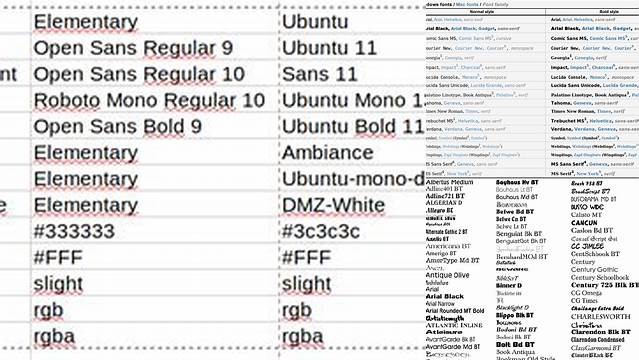
Common Fonts: Linux And Windows Compatibility Guide
Hey guys! Ever wondered which fonts play nice across both Linux and Windows? It's a crucial topic for anyone who shares documents or designs between different operating systems. Let's dive into the world of cross-platform typography and make sure your text looks fantastic everywhere!
1. Understanding Font Compatibility Between Operating Systems
Understanding font compatibility between different operating systems like Linux and Windows is key to ensuring your documents and designs look consistent no matter where they're opened. The core of the issue lies in the way each OS handles fonts. Windows typically relies on TrueType (.ttf) and OpenType (.otf) fonts, while Linux can handle these, but also has its own set of font formats. This difference in handling can lead to display issues, where a font perfectly visible on one OS might appear substituted or distorted on another. It's not just about whether the font file exists on the system; it's also about how the system interprets that font. Think of it like different languages; even if you have the words (the font files), you need to know the grammar (the OS's rendering engine) to make sense of it all. To avoid those nasty surprises where your beautifully crafted document suddenly looks like a ransom note on a different OS, it's vital to stick to common ground β fonts that are designed to work seamlessly across both platforms.
2. The Core Fonts that Work on Both Linux and Windows
When discussing the core fonts that work reliably on both Linux and Windows, we're essentially talking about the unsung heroes of cross-platform design. These fonts have stood the test of time and are generally pre-installed on most systems, making them safe bets for ensuring your text displays as intended. Arial, for example, is a classic sans-serif that's clean, legible, and widely available. Times New Roman, another staple, provides a traditional serif look that's perfect for formal documents. Courier New is the go-to monospace font, often used for code or anything that needs fixed-width characters. Calibri and Cambria, part of the Microsoft Office suite, have also gained traction as default fonts and are increasingly common across both OSes. What makes these fonts so dependable? Well, they've been around for a while, meaning they've been thoroughly tested and updated for compatibility. Moreover, their widespread use has made them a standard, ensuring that most software and rendering engines know exactly how to handle them. So, if you want to keep things simple and avoid font-related headaches, these core fonts are your best friends.
3. Arial: A Ubiquitous Sans-Serif Option
Arial, often hailed as the workhorse of the font world, is a ubiquitous sans-serif option that has become a staple in both Linux and Windows environments. Its widespread adoption isn't accidental; Arialβs clean, straightforward design makes it incredibly versatile for a wide range of applications, from body text in reports to headings in presentations. The font's neutrality is one of its greatest strengths. It doesn't scream for attention, but instead provides a legible and professional look without being overly stylistic. This makes it an excellent choice when your message needs to be the focus, not the font itself. Think of Arial as the little black dress of typography β always appropriate, always in style. Its presence on virtually every computer system means you can confidently use it knowing it will render correctly for your audience, regardless of their operating system. So, whether you're drafting a crucial email, designing a brochure, or creating a website, Arial is a reliable option that ensures your text will be seen as intended, making it a cornerstone of cross-platform communication. It's truly a safe choice for any project where clarity and compatibility are paramount.
4. Times New Roman: The Classic Serif Choice
Times New Roman, the classic serif choice, carries with it a legacy of traditional elegance and readability. Originally designed for The Times newspaper in the 1930s, this font has transcended its journalistic roots to become one of the most recognized and widely used typefaces in the world. Its distinctive serifs β the small strokes at the ends of the letters β give it a formal, polished appearance, making it a go-to for academic papers, legal documents, and other text-heavy materials where a sense of authority is desired. What sets Times New Roman apart is its excellent legibility, especially in print. The carefully crafted letterforms and balanced proportions make it easy on the eyes, even when reading large blocks of text. This is why it remains a favorite for book publishers and magazine designers. Its widespread availability on both Linux and Windows systems ensures that your documents will maintain their intended appearance across different platforms, avoiding the dreaded font substitution that can throw off formatting and readability. So, if you're aiming for a classic, professional look with guaranteed cross-platform compatibility, Times New Roman is a solid and reliable choice.
5. Courier New: The Go-To Monospace Font
Courier New, the go-to monospace font, is instantly recognizable by its uniform character width, giving it a distinctive typewriter-like appearance. Unlike proportional fonts, where each letter takes up a different amount of horizontal space, Courier New's monospace nature means every character, from 'i' to 'M', occupies the same width. This makes it an ideal choice for situations where alignment and character spacing are crucial, such as in coding, scripts, and technical documentation. The font's fixed-width design also makes it easy to visually distinguish between different characters, which is particularly important in programming where a misplaced semicolon or bracket can cause errors. While Courier New might not be the most stylish font, its functionality and clarity are its key strengths. It's a workhorse that gets the job done without fuss. Its widespread availability on both Linux and Windows means you can rely on it to display consistently across different systems, ensuring that your code or technical documents are legible no matter where they're viewed. So, when precision and clarity are paramount, Courier New is a dependable option that delivers.
6. Calibri: Microsoft's Modern Sans-Serif
Calibri, Microsoft's modern sans-serif, has become a familiar sight in the digital world, largely due to its adoption as the default font in Microsoft Office applications. Its sleek, rounded letterforms give it a contemporary and approachable feel, setting it apart from the more traditional sans-serif options like Arial. Calibri's design is optimized for on-screen readability, making it a great choice for emails, presentations, and web content. The subtle curves and open shapes of the letters enhance clarity, even at smaller sizes. This is a crucial advantage in today's digital age where so much reading happens on screens. While Calibri is a relatively newer font compared to classics like Arial or Times New Roman, it has quickly gained widespread use, making it a safe bet for cross-platform compatibility. Most modern systems, including both Linux and Windows, will have Calibri installed, ensuring your documents and designs display as intended. Its versatility and contemporary aesthetic make it a solid choice for a wide range of applications, from professional documents to casual correspondence. So, if you're looking for a font that's both modern and reliable, Calibri is a strong contender.
7. Cambria: Designed for On-Screen Reading
Cambria is a serif typeface specifically designed for on-screen reading, making it an excellent choice for digital documents and web content. Its robust letterforms and balanced proportions ensure legibility even at small sizes and in low-resolution environments. Unlike some traditional serif fonts that can appear cluttered on screen, Cambria's clear and crisp design maintains its clarity, making it easy on the eyes during extended reading sessions. This font shines in situations where readability is paramount, such as in lengthy reports, articles, and ebooks. The serifs, while present, are carefully crafted to enhance readability rather than distract from the text. Cambria has gained significant traction as a default font in Microsoft Office applications, contributing to its widespread availability across both Windows and Linux systems. This makes it a reliable option for cross-platform use, ensuring your documents will look consistent regardless of the operating system on which they're viewed. So, if you're prioritizing on-screen legibility and want a serif font that performs well in digital environments, Cambria is a fantastic choice.
8. Open Source Fonts for Cross-Platform Use
When it comes to finding fonts that work seamlessly across different operating systems, exploring open source fonts for cross-platform use is like discovering a treasure trove of typographic gems. Open source fonts are typically free to use, modify, and distribute, making them an incredibly accessible and cost-effective option. They are often developed collaboratively by designers and typographers, resulting in a diverse range of styles and designs. One of the key advantages of open source fonts is their broad compatibility. Many are designed to work flawlessly on both Linux and Windows, ensuring your text displays consistently no matter the platform. Fonts like Liberation Sans, Liberation Serif, and Liberation Mono are excellent examples, offering metrics-compatible alternatives to popular proprietary fonts like Arial, Times New Roman, and Courier New. This means you can switch to these open source options without disrupting the formatting of your existing documents. Furthermore, the open nature of these fonts often leads to frequent updates and improvements, ensuring they stay up-to-date with the latest typographic standards. So, if you're looking for high-quality, versatile fonts that won't break the bank and will work reliably across platforms, diving into the world of open source fonts is a smart move. It's a great way to expand your typographic palette and ensure your message gets across clearly, no matter where it's read.
9. Liberation Fonts: A Free Alternative to Popular Fonts
Liberation Fonts are a set of open-source typefaces designed to be metric-compatible alternatives to some of the most popular proprietary fonts, such as Arial, Times New Roman, and Courier New. This makes them an invaluable resource for anyone seeking cross-platform font consistency without the need for expensive licenses. The Liberation family includes Liberation Sans (a substitute for Arial), Liberation Serif (a substitute for Times New Roman), and Liberation Mono (a substitute for Courier New). The term "metric-compatible" is crucial here. It means that the Liberation fonts have the same character widths and spacing as their proprietary counterparts. This allows you to replace the original fonts in your documents without causing significant reflowing or formatting issues. Imagine swapping out Arial for Liberation Sans in a lengthy report β the page breaks, line endings, and overall layout will remain largely the same. This can save you countless hours of manual adjustments. Liberation Fonts are widely available and often pre-installed on Linux distributions, making them a convenient option for Linux users. They are also readily available for download and installation on Windows systems. This widespread availability, combined with their metric compatibility, makes Liberation Fonts a fantastic choice for ensuring your documents look consistent across different platforms. If you're aiming for a professional look without the cost or licensing headaches, Liberation Fonts are a strong contender.
10. Google Fonts: A Vast Library of Free Fonts
Google Fonts is a vast library of free, open-source fonts that has revolutionized the world of typography. With hundreds of font families to choose from, Google Fonts offers an incredible array of styles, from elegant serifs to modern sans-serifs, and everything in between. What makes Google Fonts particularly appealing is its ease of use and accessibility. The fonts are free to use for both personal and commercial projects, and they can be easily embedded in websites or downloaded for use in desktop applications. This makes them a fantastic resource for designers, developers, and anyone who wants to add a touch of personality to their text. Cross-platform compatibility is a key strength of Google Fonts. The fonts are designed to work seamlessly across different operating systems and browsers, ensuring your text displays consistently for all your users or readers. Google Fonts also employs a clever technology that optimizes font delivery, ensuring fast loading times for web pages. This is crucial for maintaining a positive user experience on your website. Exploring Google Fonts is like stepping into a candy store for typography lovers. You're sure to find the perfect font to match your project's aesthetic and ensure your message shines. If you're looking for variety, quality, and cross-platform reliability, Google Fonts is a resource you can't afford to ignore.
11. Font Licensing and Legal Considerations
Navigating font licensing and legal considerations can sometimes feel like wading through a dense legal thicket, but understanding the basics is essential to avoid potential copyright issues. Fonts, like software, are intellectual property, and their use is governed by licensing agreements. These agreements dictate how you can use the font, including whether it's for personal or commercial projects, the number of users who can access it, and whether you can embed it in documents or websites. Ignoring these licenses can lead to legal trouble, so it's crucial to pay attention to the fine print. There are various types of font licenses. Some fonts are free for personal use but require a commercial license for business applications. Others are open-source, allowing for modification and redistribution. Still, others have very restrictive licenses that limit their use to specific projects or contexts. Before using a font, always check the licensing terms. Look for the license file or consult the font vendor's website. When in doubt, it's always best to err on the side of caution and seek permission or purchase a license. Using fonts legally not only protects you from legal repercussions but also supports the designers and foundries who create these valuable typographic resources. So, take the time to understand font licensing β it's a small investment that can save you big headaches down the road.
12. Embedding Fonts in Documents
Embedding fonts in documents is a crucial step in ensuring that your carefully chosen typefaces display correctly, regardless of the recipient's operating system or installed fonts. When you embed a font, you're essentially including a copy of the font file within the document itself. This means that even if the recipient doesn't have the font installed on their system, they'll still be able to view the document with the correct typography. Think of it as packing your own set of paints when you send a painting β you're ensuring the colors remain true to your vision. Embedding fonts is particularly important when sharing documents across platforms like Windows and Linux, where font availability can vary. Without embedding, your document might default to a substitute font, which can alter the layout, spacing, and overall appearance. Most modern document creation software, such as Microsoft Word, Adobe InDesign, and LibreOffice, offer options for embedding fonts. The process typically involves checking a box or selecting an option during the save or export process. However, it's essential to be mindful of font licensing. Some font licenses restrict embedding, so always check the terms before doing so. Also, embedding fonts can increase the file size of your document, so it's a trade-off between visual consistency and file size. However, for critical documents where appearance matters, embedding fonts is generally worth the extra effort and file size.
13. Using PDFs for Font Consistency
Using PDFs for font consistency is a smart strategy for ensuring your documents look the same on any device or operating system. PDF, or Portable Document Format, is designed to preserve the formatting and layout of a document, including fonts, images, and graphics, regardless of the software or hardware used to view it. Think of a PDF as a digital snapshot of your document β it captures the visual essence and prevents unwanted changes. One of the key advantages of PDFs is their ability to embed fonts. When you create a PDF, the font files used in the document are typically included within the PDF itself. This means that even if the recipient doesn't have the fonts installed on their system, they'll still see the document with the correct typefaces. This is particularly crucial when sharing documents across platforms like Windows and Linux, where font availability can differ. PDFs are also widely supported and can be opened on virtually any device, from computers to smartphones, using free PDF viewers like Adobe Acrobat Reader. This universality makes them an ideal choice for sharing important documents, such as resumes, contracts, and reports, where visual fidelity is paramount. So, if you want to guarantee that your documents maintain their intended appearance across different platforms, using PDFs is a reliable and effective solution. It's a simple step that can make a big difference in how your work is perceived.
14. Font Substitution and How to Avoid It
Font substitution is the gremlin in the machine when it comes to cross-platform document sharing. It's what happens when a font used in your document isn't available on the recipient's system, causing their software to replace it with a different font. This can lead to formatting nightmares, where your carefully crafted layout is thrown into disarray, text reflows awkwardly, and the overall visual impact is compromised. To avoid this typographic tragedy, understanding the causes of font substitution is key. The most common culprit is using uncommon or custom fonts that aren't widely distributed. If you use a niche font, there's a good chance the recipient won't have it installed. Operating system differences also play a role. Windows and Linux systems come with different default font sets, so a font that's standard on one platform might be missing on the other. So, how do you fight back against font substitution? The first line of defense is to stick to common, cross-platform fonts like Arial, Times New Roman, Courier New, Calibri, and Cambria. These fonts are widely available and are likely to be present on most systems. Another strategy is to embed fonts in your documents. This includes a copy of the font file within your document, ensuring it displays correctly regardless of the recipient's installed fonts. Finally, converting your document to PDF is a reliable way to preserve font consistency, as PDFs embed font information by default. By taking these precautions, you can minimize the risk of font substitution and ensure your documents look their best, no matter where they're opened.
15. Checking for Font Availability on Different Systems
Checking for font availability on different systems is like packing the right tools for a job β it ensures you're prepared for any situation. Before finalizing a document or design that will be shared across platforms, it's wise to verify that the fonts you've used are likely to be present on the recipient's system. This simple step can prevent font substitution and maintain the visual integrity of your work. One way to check font availability is to consult font lists that detail the default fonts included with different operating systems. Microsoft, for example, provides lists of fonts included with various versions of Windows. Similarly, Linux distributions often come with a standard set of fonts. By comparing your font choices against these lists, you can identify potential compatibility issues. Online resources like websites and forums dedicated to typography and design can also provide valuable insights into font availability. These communities often discuss font compatibility issues and offer advice on cross-platform font choices. Another practical approach is to test your documents on different systems. If you have access to both Windows and Linux machines, try opening your document on each to see if any font substitutions occur. If you're working collaboratively, ask your colleagues or clients to check the document on their systems as well. By proactively checking for font availability, you can avoid surprises and ensure your message is delivered clearly and consistently, regardless of the platform used to view it. It's a small investment of time that can save you from potential headaches down the road.
16. Font Management Tools for Cross-Platform Workflows
Font management tools are the unsung heroes of cross-platform workflows, helping you keep your typographic house in order and ensuring consistent font usage across different systems. These tools go beyond simply installing fonts; they provide features for organizing, activating, and managing your font library, making it easier to find the right font for the job and avoid font conflicts. Think of them as your personal font librarians, keeping track of your collection and making sure everything is in its place. One of the key benefits of font management tools is their ability to activate and deactivate fonts as needed. This is particularly useful when working on multiple projects with different font requirements. By only activating the fonts you need for a specific project, you can reduce system clutter and improve performance. Font management tools also help you resolve font conflicts, which occur when multiple versions of the same font are installed on your system. These conflicts can lead to display issues and application crashes. The tools can identify and resolve these conflicts, ensuring your fonts work smoothly. For cross-platform workflows, some font management tools offer features for syncing fonts across different computers or sharing font sets with collaborators. This ensures everyone is using the same fonts, regardless of their operating system. Popular font management tools include Adobe Fonts (formerly Typekit), FontBase, and RightFont. These tools offer a range of features to streamline your font workflow and make cross-platform collaboration a breeze. So, if you're serious about typography and want to maintain font consistency across different systems, investing in a good font management tool is a smart move.
17. Creating Consistent Design Across Platforms
Creating consistent design across platforms, whether it's Windows, Linux, macOS, or mobile devices, is a fundamental challenge in today's multi-device world. The goal is to ensure that your designs look and function as intended, regardless of the operating system, browser, or screen size used to view them. Achieving this consistency requires careful planning, attention to detail, and a strategic approach to design elements like typography, layout, and imagery. One of the key pillars of cross-platform consistency is responsive design. This approach involves creating designs that adapt fluidly to different screen sizes and resolutions. Responsive websites, for example, use flexible grids and media queries to adjust the layout and content based on the user's device. Typography plays a crucial role in cross-platform consistency. Using web-safe fonts or embedding fonts can help ensure your text displays correctly across different systems. However, it's also important to consider factors like font size, line height, and letter spacing, which can affect readability on different screens. Imagery should also be optimized for different platforms. Using scalable vector graphics (SVGs) can help ensure images look crisp and clear on both high-resolution and low-resolution displays. Testing your designs on different devices and browsers is essential for identifying and addressing any inconsistencies. Cross-browser testing tools can help automate this process and ensure your designs function correctly across a range of platforms. Creating consistent design across platforms requires a holistic approach that considers all aspects of the user experience. By paying attention to these details, you can create designs that look great and function flawlessly, no matter where they're viewed.
18. Web-Safe Fonts and Their Limitations
Web-safe fonts are the tried-and-true workhorses of web design, offering a reliable way to ensure your text displays correctly across different browsers and operating systems. These fonts are the ones that are most likely to be pre-installed on users' computers, making them a safe bet for consistent typography. Think of them as the classic wardrobe staples β always in style and always dependable. The traditional web-safe font list includes stalwarts like Arial, Times New Roman, Courier New, Verdana, and Georgia. These fonts have been around for years and are widely supported, making them a go-to choice for web designers who prioritize compatibility. However, while web-safe fonts offer reliability, they also come with limitations. Their limited selection can sometimes feel restrictive, especially for designers who want to create a unique and expressive visual identity. Using only web-safe fonts can lead to designs that feel generic or outdated. Another limitation is the lack of stylistic variation within the web-safe font families. While some fonts offer bold and italic styles, the range of weights and styles is often limited compared to more modern font families. Despite these limitations, web-safe fonts still have a place in web design. They are a practical choice for projects where compatibility is paramount, such as government websites or internal corporate communications. However, for projects where visual creativity is a priority, designers often turn to web fonts, which offer a much wider range of styles and designs. The key is to weigh the trade-offs between compatibility and creativity and choose the fonts that best suit the needs of your project.
19. Using Web Fonts for Greater Design Flexibility
Using web fonts is like unlocking a treasure chest of typographic possibilities for your web designs. Unlike web-safe fonts, which are limited to a small selection of commonly installed typefaces, web fonts allow you to use a vast array of fonts from online services like Google Fonts, Adobe Fonts, and others. This gives you the freedom to choose fonts that perfectly match your brand's aesthetic and create a unique visual identity. Think of it as having an endless palette of colors to paint with, rather than being limited to just a few basic shades. The key benefit of web fonts is the increased design flexibility they offer. You can choose from thousands of fonts, ranging from elegant serifs to modern sans-serifs, and everything in between. This allows you to create designs that are more expressive, engaging, and visually appealing. Web fonts are also relatively easy to implement. Most web font services provide code snippets that you can simply paste into your website's HTML or CSS. The fonts are then downloaded from the service's servers and displayed on your website. This means you don't have to worry about hosting the font files yourself. However, there are some considerations to keep in mind when using web fonts. Loading too many web fonts can slow down your website's loading time, which can negatively impact user experience. It's important to choose your fonts carefully and optimize them for web use. Font licensing is another factor to consider. While many web fonts are free to use, others require a license. Always check the licensing terms before using a web font in your project. Despite these considerations, web fonts are a powerful tool for enhancing your web designs and creating a distinctive visual identity. They offer a level of design flexibility that web-safe fonts simply can't match.
20. Font Rendering Differences Between Browsers
Font rendering differences between browsers can be a frustrating reality for web designers and developers. What looks crisp and clean in one browser might appear slightly blurry or distorted in another. These inconsistencies stem from the way different browsers use their rendering engines to interpret and display fonts. Think of it as each browser having its own unique lens through which it views your typography. Several factors contribute to these rendering variations. Different browsers use different algorithms for anti-aliasing, the technique used to smooth out the edges of fonts. Some browsers may also apply subpixel rendering, which uses the individual color components of pixels to create finer details. These techniques can produce subtle but noticeable differences in how fonts appear. Operating system differences also play a role. Fonts can render slightly differently on Windows, macOS, and Linux due to variations in their respective font rendering engines. Browser zoom levels can also affect font rendering. As you zoom in or out, the browser has to rescale the font, which can sometimes lead to distortions. To minimize font rendering inconsistencies, there are several strategies you can employ. Using web fonts can help, as these fonts are often optimized for web use and designed to render consistently across browsers. Choosing fonts with clean, simple designs can also reduce rendering issues. Avoiding very thin or overly decorative fonts can help ensure legibility across different browsers. Testing your designs in multiple browsers is crucial for identifying and addressing any rendering problems. Cross-browser testing tools can help streamline this process. While achieving perfect font rendering consistency across all browsers is a challenge, understanding the factors that contribute to these differences can help you make informed design decisions and create websites that look their best, no matter the browser used to view them.
21. Font Formats: TTF, OTF, and WOFF
Font formats are the digital containers that hold the instructions for how a font should be displayed. Understanding the differences between various font formats, such as TTF, OTF, and WOFF, is crucial for ensuring your fonts render correctly across different platforms and devices. Think of font formats as different languages spoken by computers β you need the right format for the message to be understood. TTF (TrueType Font) is one of the oldest and most widely supported font formats. Developed by Apple and Microsoft in the late 1980s, TTF fonts are compatible with virtually all operating systems and applications. They use a combination of outlines and instructions called "hints" to render fonts at different sizes, making them a reliable choice for both print and screen. OTF (OpenType Font) is a more advanced font format that builds upon TTF. Developed jointly by Microsoft and Adobe, OTF fonts offer enhanced typographic features, such as ligatures, swashes, and alternate characters. OTF fonts can also contain more glyphs (characters) than TTF fonts, allowing for greater design flexibility. Like TTF, OTF fonts are widely supported across platforms. WOFF (Web Open Font Format) is a font format specifically designed for use on the web. It's essentially a compressed version of TTF or OTF, which means it loads faster on websites. WOFF fonts also contain metadata that helps prevent font piracy. WOFF2 is the successor to WOFF and offers even better compression, resulting in faster loading times. When choosing a font format for your project, consider the target platform and the desired features. TTF and OTF are good choices for desktop applications and print, while WOFF and WOFF2 are ideal for web use. Using the right font format ensures your typography looks its best and performs well, regardless of the viewing environment.
22. Converting Fonts for Cross-Platform Compatibility
Converting fonts for cross-platform compatibility is a useful technique for ensuring your typography displays correctly, even when dealing with older or less common font formats. Sometimes, a font that works perfectly on one operating system might not render correctly on another due to format incompatibilities. In these situations, converting the font to a more universally supported format can be the solution. Think of it as translating a document into a language that everyone can understand. There are several online and desktop tools available for converting fonts between different formats. Online font converters are convenient for quick conversions, while desktop tools offer more advanced features and control. When converting fonts, it's essential to understand the different font formats and their compatibility. TTF (TrueType Font) and OTF (OpenType Font) are widely supported formats, but older systems might have trouble with some OTF features. WOFF (Web Open Font Format) and WOFF2 are optimized for web use and offer excellent cross-browser compatibility. Converting a font typically involves uploading the font file to the converter tool and selecting the desired output format. The tool then processes the font and generates the converted file. However, it's crucial to be mindful of font licensing when converting fonts. Some font licenses restrict conversion or modification, so always check the terms before proceeding. Another consideration is font quality. Converting fonts can sometimes result in slight loss of quality, especially when converting between different font technologies. It's always a good idea to compare the converted font to the original to ensure it meets your standards. Font conversion can be a valuable tool for achieving cross-platform compatibility, but it's essential to approach it with caution and respect for font licensing.
23. Troubleshooting Font Display Issues
Troubleshooting font display issues can be a frustrating but necessary task for anyone working with typography across different platforms. When a font doesn't display as expected, it can disrupt the visual harmony of your design and compromise the legibility of your text. Identifying the cause of the problem is the first step in finding a solution. Think of it as playing detective β you need to gather clues to solve the mystery. Common font display issues include font substitution, where a font is replaced with a different typeface; distorted or blurry fonts; and missing characters or glyphs. Font substitution often occurs when the font used in a document is not installed on the recipient's system. To prevent this, stick to common, cross-platform fonts or embed fonts in your documents. Distorted or blurry fonts can result from font rendering problems, which can be influenced by browser differences, operating system settings, and zoom levels. Experimenting with different font rendering settings or trying a different browser can sometimes resolve these issues. Missing characters or glyphs can occur when a font doesn't contain all the characters needed for a particular language or script. Choosing a font with a comprehensive character set or using a fallback font can help address this problem. Font conflicts, where multiple versions of the same font are installed, can also cause display issues. Font management tools can help identify and resolve these conflicts. When troubleshooting font display issues, it's helpful to isolate the problem. Try viewing the font in different applications or on different systems to see if the issue persists. Online font testing tools can also help you diagnose font rendering problems. By systematically investigating the possible causes, you can often find a solution and restore the intended appearance of your typography.
24. Font Caching and Clearing Font Cache
Font caching is a behind-the-scenes process that can sometimes lead to font display issues, particularly when working with web fonts or making font updates. Understanding how font caching works and knowing how to clear your font cache can be valuable troubleshooting skills. Think of font caching as your computer's way of trying to be efficient β it stores font files locally so they can load faster in the future. When you visit a website that uses web fonts, your browser downloads the font files and stores them in a cache on your computer. The next time you visit that website, your browser can load the fonts from the cache instead of downloading them again, which speeds up the loading process. However, this caching mechanism can sometimes cause problems. If you update a font on your website, your visitors might not see the changes immediately because their browsers are still using the cached version of the font. Similarly, if a cached font file becomes corrupted, it can lead to display issues. Clearing your font cache forces your browser to download fresh copies of the fonts, ensuring you're seeing the latest versions. The process for clearing the font cache varies depending on the operating system and browser you're using. In Windows, you can typically clear the font cache by deleting the contents of the %WinDir%\ServiceProfiles\LocalService\AppData\Local\FontCache\v4 directory. On macOS, you can use the Font Book application to reset the font cache. Most browsers also have settings for clearing cached data, including fonts. If you're experiencing font display issues or want to ensure you're seeing the most up-to-date fonts, clearing your font cache is a simple and effective solution.
25. The Future of Cross-Platform Typography
The future of cross-platform typography looks bright, with advancements in font technology and web standards paving the way for more consistent and expressive typography across different devices and operating systems. As technology evolves, the challenges of achieving typographic harmony across platforms are gradually diminishing. Think of the future as a landscape where fonts flow seamlessly from one device to another, maintaining their intended appearance and readability. One key trend shaping the future of cross-platform typography is the continued development of variable fonts. Variable fonts are a revolutionary font format that allows a single font file to contain multiple variations of a typeface, such as different weights, widths, and styles. This reduces file sizes and improves website performance, while also giving designers greater flexibility and control over typography. Another important trend is the increasing adoption of web standards that promote font compatibility. CSS Font Loading API, for example, allows developers to control how fonts are loaded on web pages, improving the user experience and preventing font rendering issues. The rise of artificial intelligence (AI) and machine learning (ML) is also likely to impact the future of typography. AI-powered tools could potentially automate font selection, optimize font rendering, and even generate new typefaces. The metaverse and immersive digital experiences are also creating new challenges and opportunities for typography. Designers will need to consider how fonts will be displayed in virtual and augmented reality environments, ensuring legibility and visual appeal. Overall, the future of cross-platform typography is dynamic and exciting. As technology advances, we can expect to see even greater consistency, flexibility, and creativity in the world of type.
26. Font Fallbacks: Ensuring Readability
Font fallbacks are a critical strategy for ensuring readability and maintaining a consistent user experience on your website or document, even when the primary font isn't available. Think of font fallbacks as your typographic safety net β they catch you when your first-choice font stumbles. When a user's browser or operating system can't load or display your chosen font, it falls back to the next font in your specified list. This cascading system ensures that some font will always be displayed, preventing the dreaded blank space or garbled text. The most common way to implement font fallbacks is through CSS (Cascading Style Sheets) in web design. In your CSS code, you can list multiple fonts in the font-family property. The browser will try to use the first font in the list, and if that fails, it will move on to the next, and so on. A well-crafted font fallback stack typically ends with a generic font family, such as sans-serif, serif, or monospace. These generic families instruct the browser to use a default font of that type, ensuring that at least a basic font is displayed. When choosing fallback fonts, it's best to select fonts that are similar in style and proportions to your primary font. This will minimize the visual disruption if a fallback font is used. For example, if your primary font is a sans-serif with a specific weight, your fallback fonts should also be sans-serifs with similar weights. Font fallbacks are particularly important for cross-platform compatibility. Different operating systems and browsers have different default font sets, so a font that's common on one system might be missing on another. By using font fallbacks, you can mitigate these differences and ensure a more consistent typographic experience for all users.
27. Optimizing Font Loading for Website Performance
Optimizing font loading is a crucial aspect of website performance. Slow-loading fonts can significantly impact your site's speed, leading to a poor user experience. Think of font loading as the delivery service for your website's personality β if it's slow, your message might not arrive on time. When a user visits your website, their browser needs to download the font files before it can display the text. Large font files or a large number of fonts can take time to download, especially on slow internet connections. This can result in a "flash of unstyled text" (FOUT), where the text is initially displayed in a default font before the custom font loads, or a "flash of invisible text" (FOIT), where the text is hidden until the font loads. Both FOUT and FOIT can be jarring for users. There are several strategies for optimizing font loading. One key technique is to use WOFF2 (Web Open Font Format) files. WOFF2 is a modern font format that offers excellent compression, resulting in smaller file sizes and faster loading times. Another approach is to use font subsets. If you only need a subset of characters from a font, you can create a smaller font file that only includes those characters. This reduces the file size and improves loading speed. Font loading strategies, such as preloading fonts and using font-display property in CSS, can also help optimize font loading. Preloading fonts tells the browser to download the font files as early as possible, while the font-display property controls how the browser renders text while the font is loading. Choosing your fonts carefully can also impact performance. Using fewer fonts and selecting fonts with simpler designs can help reduce file sizes. By implementing these optimization techniques, you can ensure your fonts load quickly and your website delivers a smooth and engaging user experience.
28. Using Icons as Font (Icon Fonts)
Using icons as fonts, often referred to as icon fonts, is a clever technique for incorporating scalable vector icons into your websites and applications. Think of icon fonts as a typographic shortcut β instead of using images for icons, you use font characters. This approach offers several advantages. Because icons are treated as text, they can be easily styled using CSS properties like color, font-size, and text-shadow. This gives you a great deal of flexibility in customizing the appearance of your icons. Icon fonts are also scalable. Since they're vector-based, they look crisp and clear at any size, without becoming pixelated. This is particularly important for responsive designs that need to adapt to different screen sizes and resolutions. Icon fonts typically have smaller file sizes than image-based icons, which can improve website performance. A single font file can contain dozens or even hundreds of icons, reducing the number of HTTP requests needed to load your icons. There are many icon font libraries available, such as Font Awesome, Material Icons, and Ionicons. These libraries provide a wide range of icons that you can easily integrate into your projects. Using icon fonts involves including the font file in your project and then using CSS classes or character codes to display the icons. Most icon font libraries provide detailed documentation and examples to help you get started. However, there are also some considerations to keep in mind when using icon fonts. Screen readers might not interpret icon font characters correctly, so it's important to provide alternative text descriptions for accessibility. Also, loading a large icon font file can still impact performance, so it's best to use only the icons you need. Despite these considerations, icon fonts are a powerful tool for enhancing the visual appeal and user experience of your websites and applications.
29. Accessibility Considerations for Font Choices
Accessibility considerations for font choices are paramount in ensuring that your content is readable and usable by everyone, including individuals with visual impairments or reading disabilities. Think of accessible font choices as building a bridge β you're connecting your message to a wider audience. Choosing the right fonts can significantly improve the reading experience for people with conditions like dyslexia or low vision. Several factors contribute to font accessibility. Font size is crucial. Small font sizes can be difficult to read, especially for users with visual impairments. A general guideline is to use a minimum font size of 16 pixels for body text. Contrast is another important consideration. The contrast between the text color and the background color should be high enough to ensure readability. Insufficient contrast can make it difficult for users to distinguish the text from the background. Font style and weight also play a role. Avoid using overly decorative or stylized fonts, as these can be difficult to decipher. Choose fonts with clear, simple letterforms. Bold text can improve readability for some users, but avoid using all caps, as this can make text harder to read. Line height and letter spacing can also affect readability. Sufficient line height (the space between lines of text) and letter spacing can prevent text from feeling cramped and improve legibility. Font choice itself is a key consideration. Sans-serif fonts are generally considered more accessible than serif fonts, as their clean letterforms are easier to read on screens. However, some serif fonts can also be accessible if they have clear, well-defined letterforms. Testing your font choices with users who have visual impairments or reading disabilities is a valuable way to ensure accessibility. There are also online tools that can help you assess the accessibility of your font choices. By prioritizing accessibility in your font choices, you can create content that is inclusive and usable by everyone.
30. Best Practices for Cross-Platform Font Usage
Navigating the world of cross-platform font usage can feel like a typographic tightrope walk, but following best practices can help you maintain balance and ensure your message lands gracefully, no matter the platform. Think of these practices as your typographic toolkit, equipping you with the knowledge and strategies to create consistent and readable typography across different operating systems and devices. One fundamental best practice is to prioritize common, cross-platform fonts. Fonts like Arial, Times New Roman, Courier New, Calibri, and Cambria are widely available on both Windows and Linux systems, making them safe bets for compatibility. Another key practice is to use web fonts judiciously. While web fonts offer a vast selection of typefaces, loading too many web fonts can slow down your website's performance. Choose your web fonts carefully and optimize them for web use. Font fallbacks are essential for ensuring readability when your primary font isn't available. Create a well-crafted font fallback stack in your CSS, ending with a generic font family (e.g., sans-serif, serif, monospace) to guarantee that some font will always be displayed. Embedding fonts in documents, especially PDFs, is a reliable way to preserve font consistency when sharing files across platforms. However, be mindful of font licensing restrictions, as some licenses prohibit embedding. Regular testing is crucial. Test your typography on different operating systems, browsers, and devices to identify any rendering issues or compatibility problems. Font management tools can help you organize and manage your font library, ensuring you're using the correct fonts and avoiding font conflicts. Consider accessibility when making font choices. Choose fonts with sufficient size, contrast, and clear letterforms to ensure readability for all users, including those with visual impairments. By adhering to these best practices, you can create typography that is both visually appealing and cross-platform compatible, ensuring your message is delivered clearly and effectively, no matter where it's viewed.